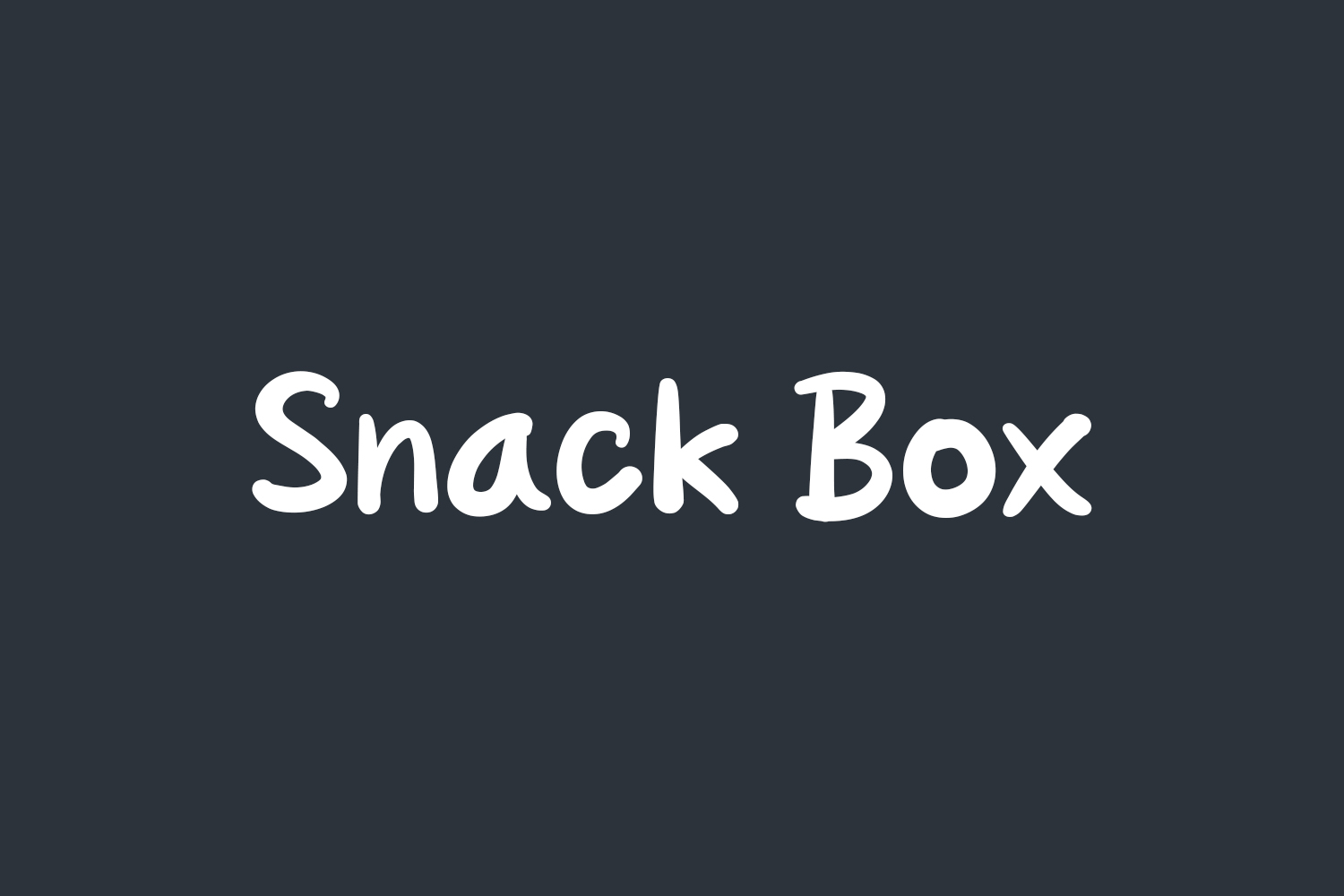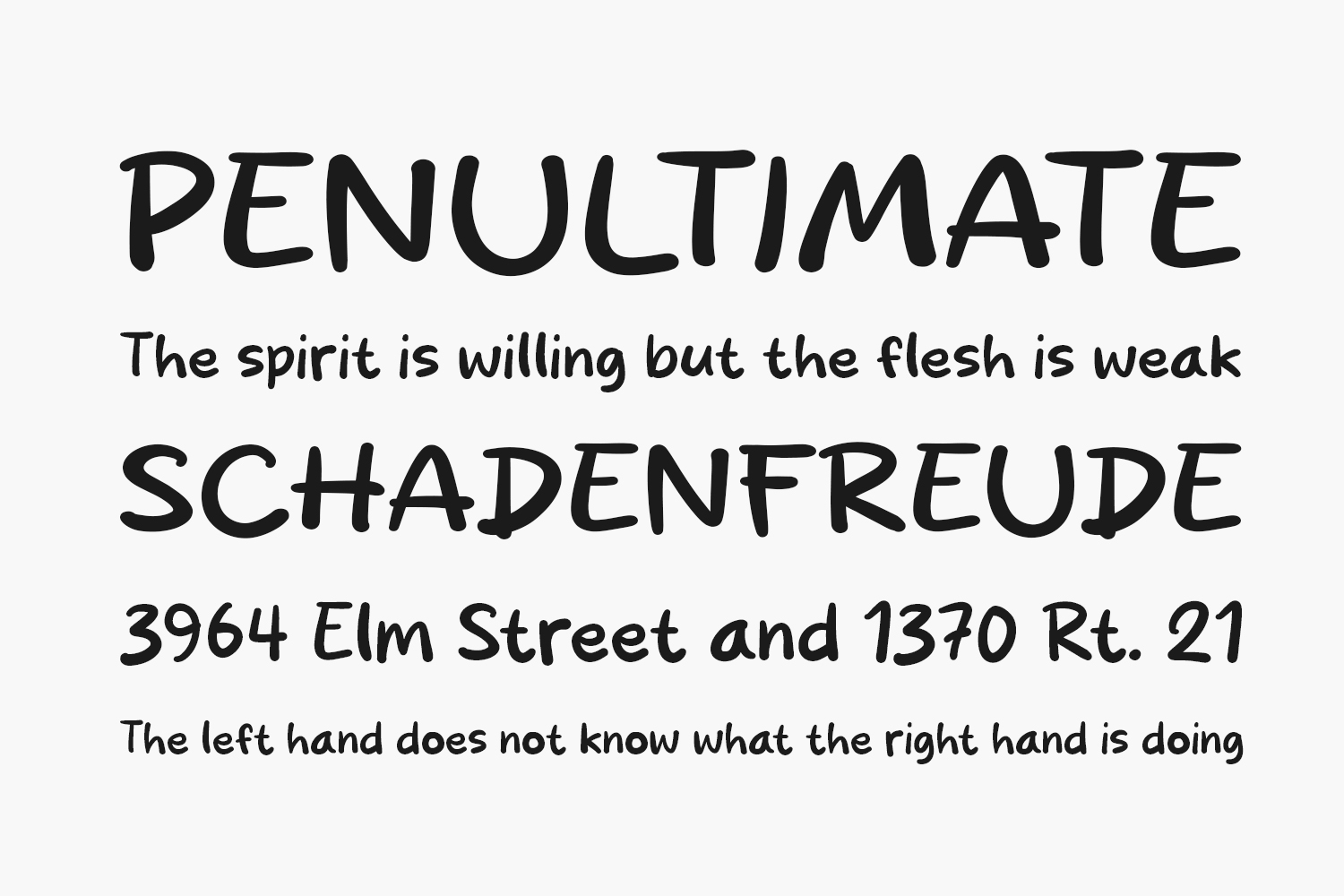
Snack Box Free Font presents a sleek and stylish handwriting font ideal for posters, logos, magazines, book covers, banners, and beyond! Elevate your designs with this incredible font and watch as it transforms your creative visions. Versatile enough to complement a wide array of projects, Snack Box is sure to make your creations shine. Download the font for free if you need it for personal or commercial use.